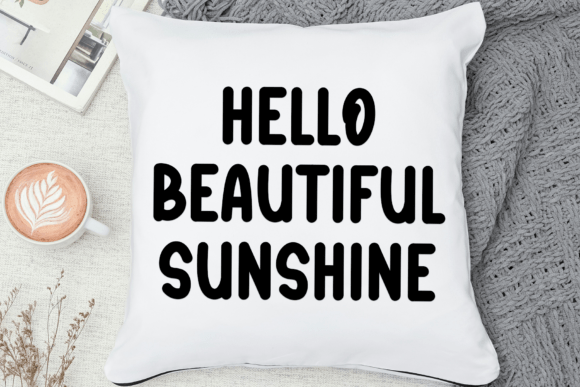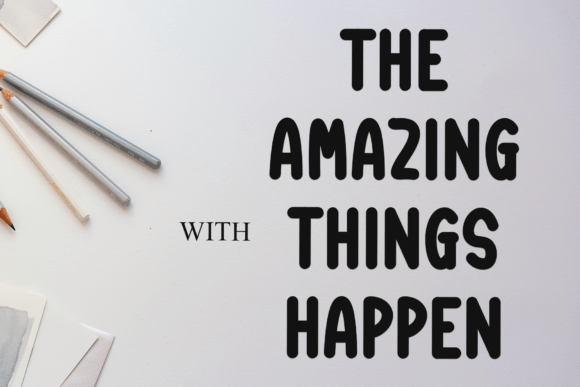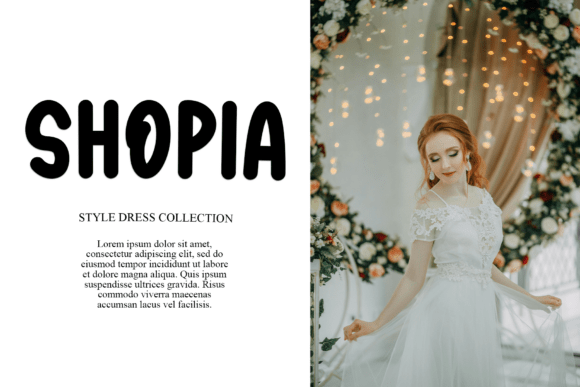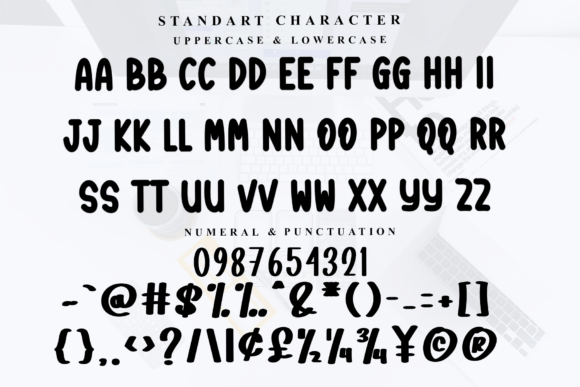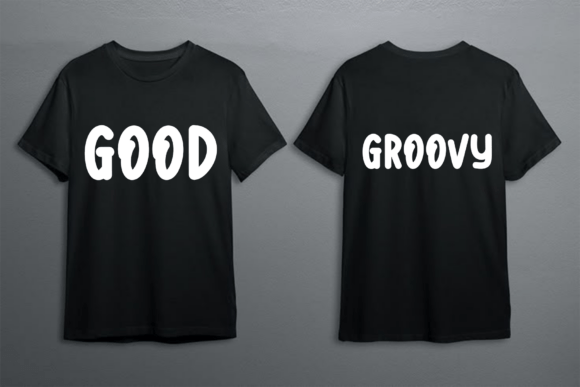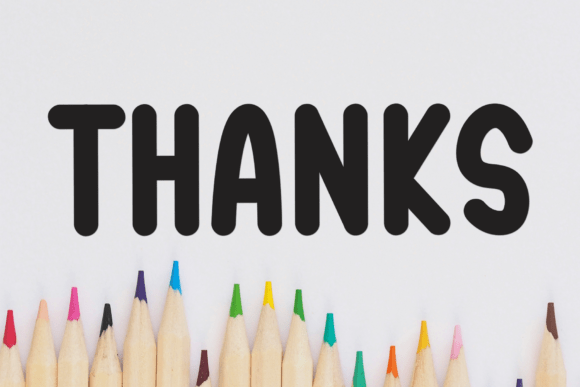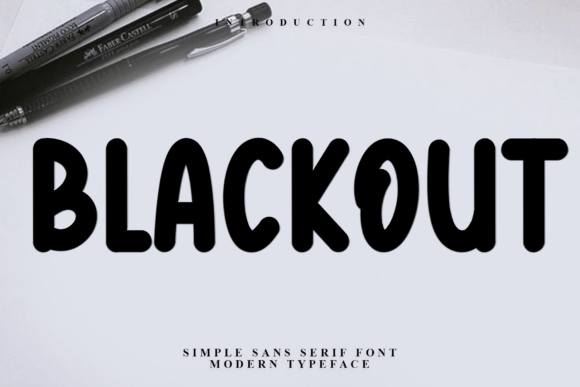
The Magic of Blackout Font: Elevate Your Holiday Designs
It’s that time of the year again – the holiday season is just around the corner, and with it comes the pressure to create stunning designs that capture the spirit of the festivities. I still remember the year I was tasked with designing a Christmas card for my family’s holiday gathering. I spent hours scrolling through font libraries, searching for the perfect typeface that would convey the cheer and joy of the season. That’s when I stumbled upon Blackout Font, a festive and merry typeface that instantly added a touch of enchantment to my designs.
A Personal Review: What I Love About Blackout Font
Here’s what makes Blackout Font a standout in my book:
• ✨ Festive and Whimsical: Blackout Font is designed to bring a cheerful and nostalgic ambiance to your words, making it perfect for holiday-themed projects.
• 🎉 Versatile: Blackout Font is perfect for a variety of design projects, including greeting cards, gift tags, and holiday-themed projects.
The Not-So-Perfect: A Few Quirks
While Blackout Font is a stunning addition to any design project, there are a few quirks to keep in mind:
• 🤔 Limited Use Cases: While Blackout Font is perfect for holiday-themed projects, it may not be the best choice for more formal or professional designs.
The Story Behind Blackout Font
Blackout Font was designed with the holiday season in mind. The designer wanted to create a font that would capture the spirit of the festivities and bring a touch of magic to designs. With its decorative elements and whimsical flair, Blackout Font is the perfect choice for any holiday-themed project.
What is Blackout Font? Blackout Font is a festive and merry typeface designed to capture the spirit of the holiday season.